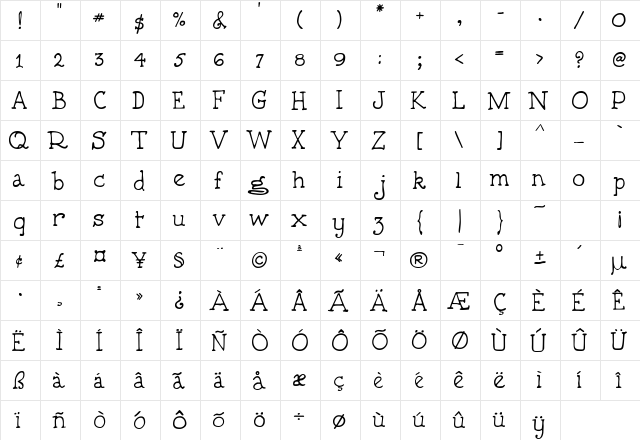
SixthGradeSSK Regular
Design Context for SixthGradeSSK Typeface
SixthGradeSSK is a composed and adaptable typeface that performs quietly and consistently across a wide range of design contexts.